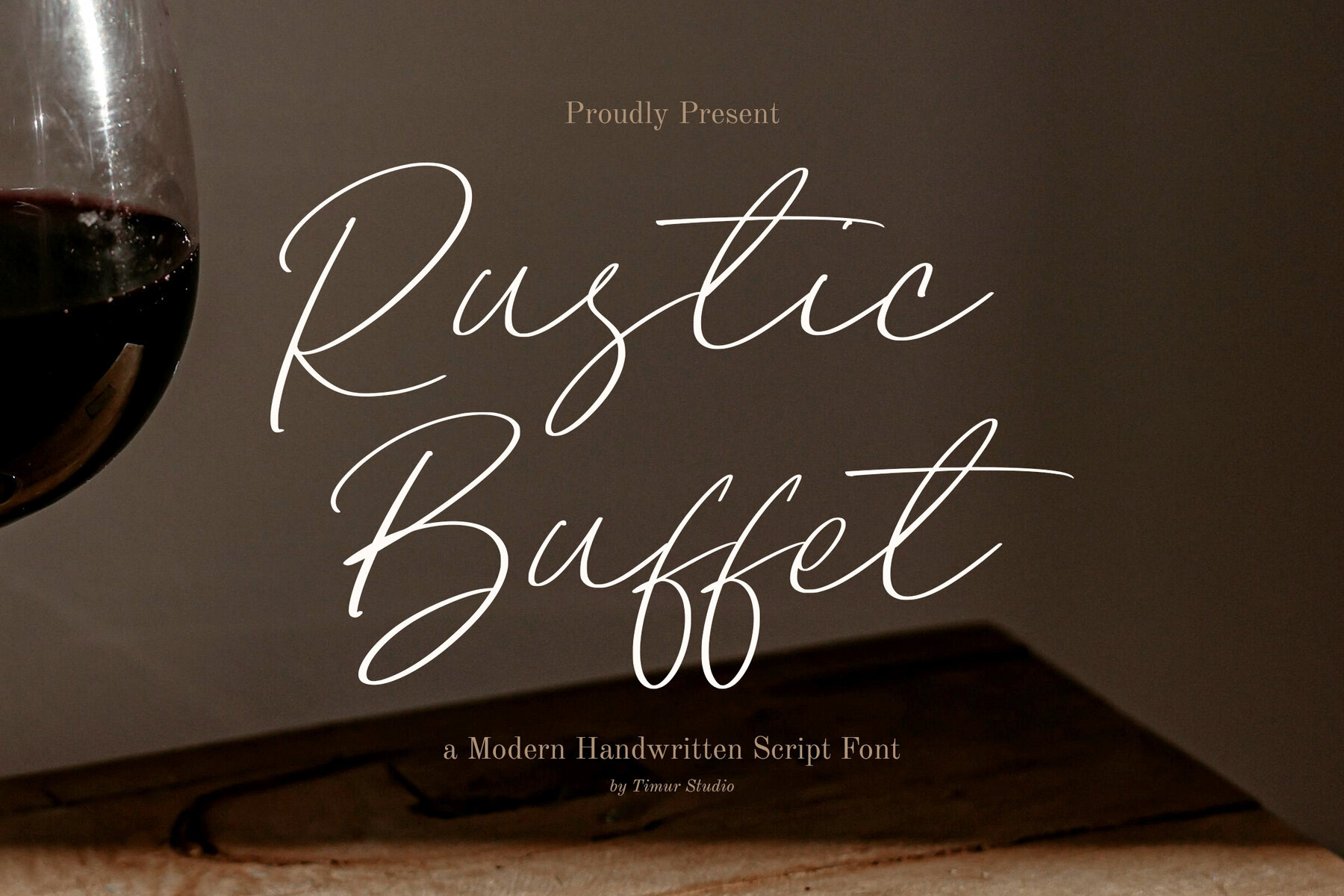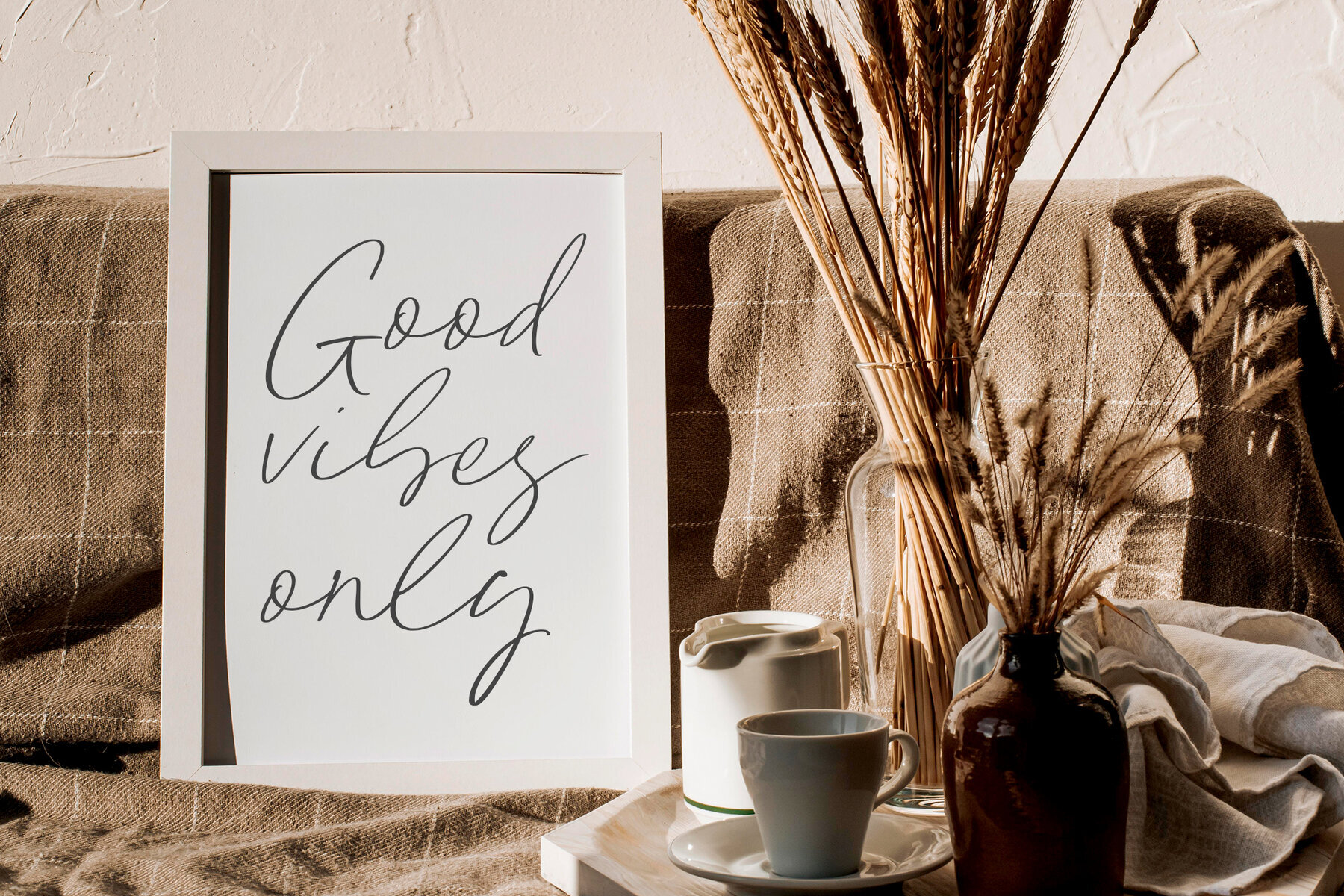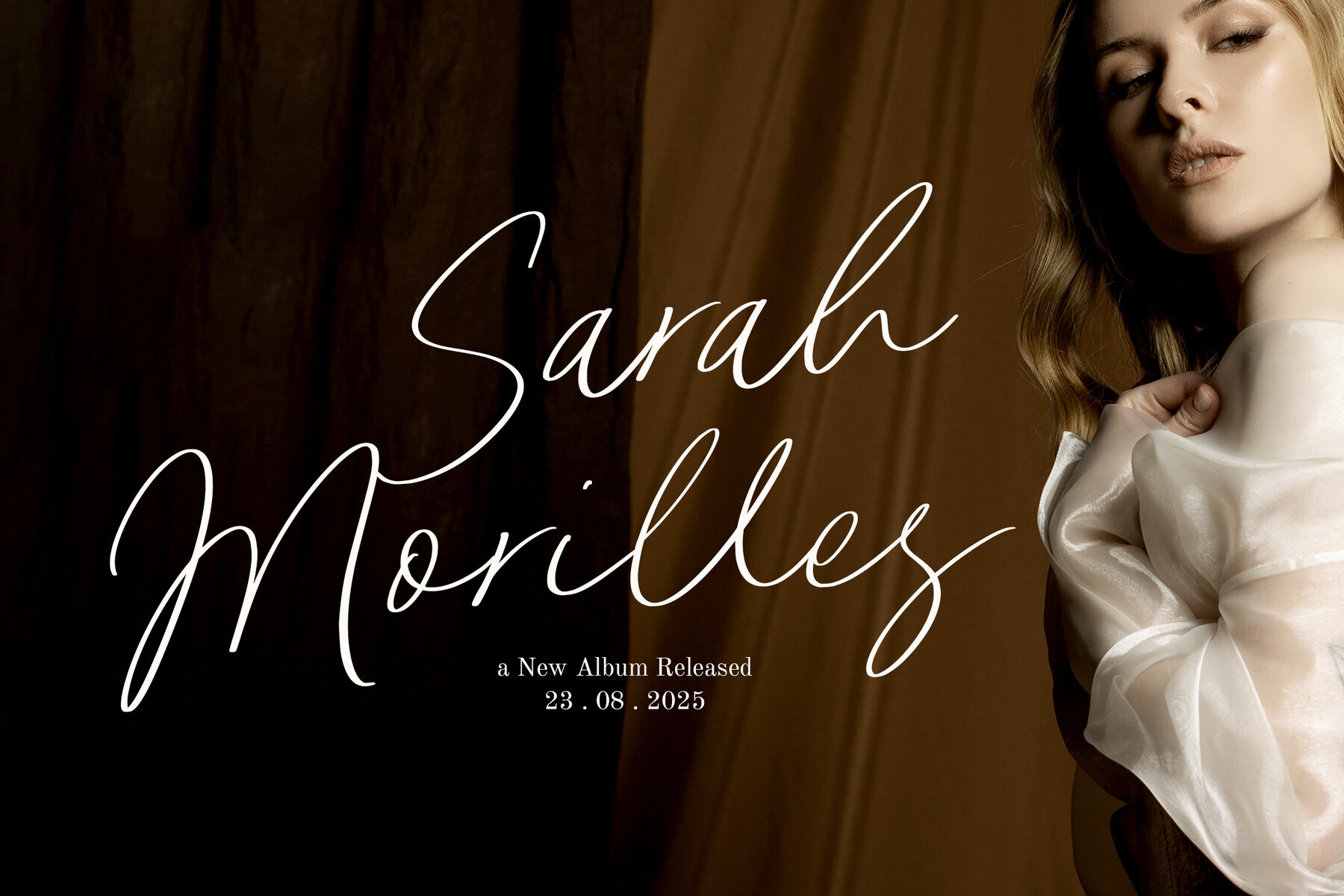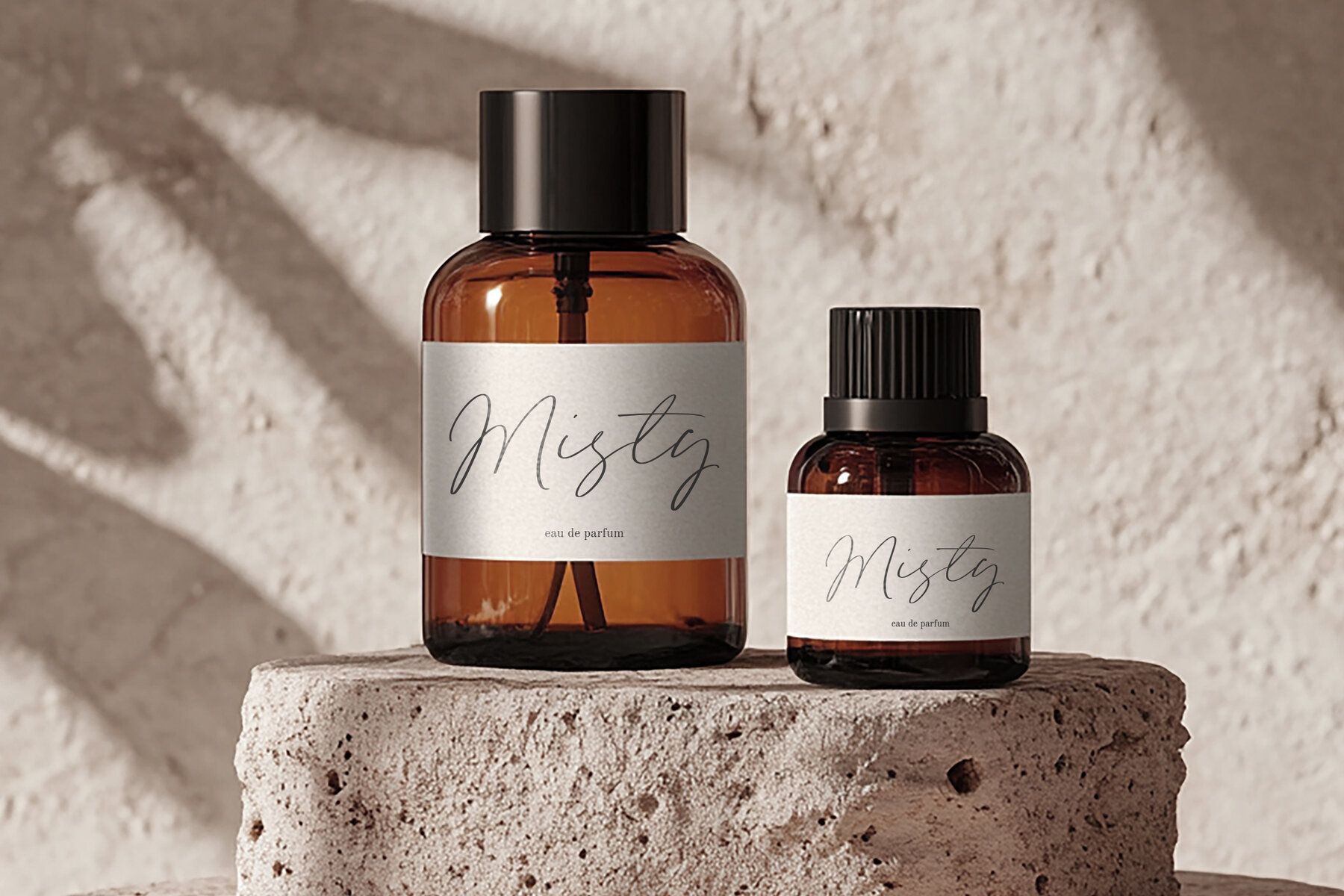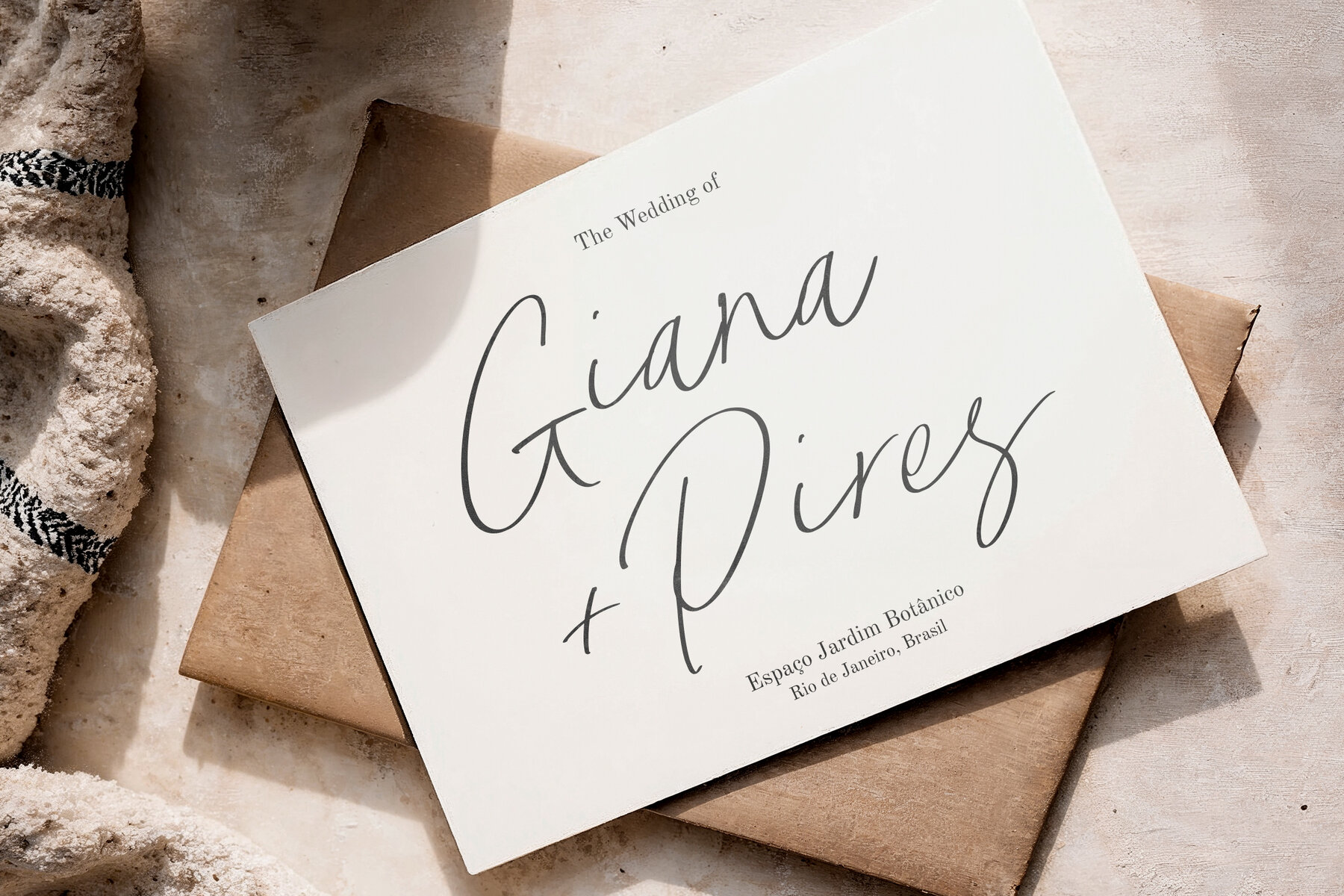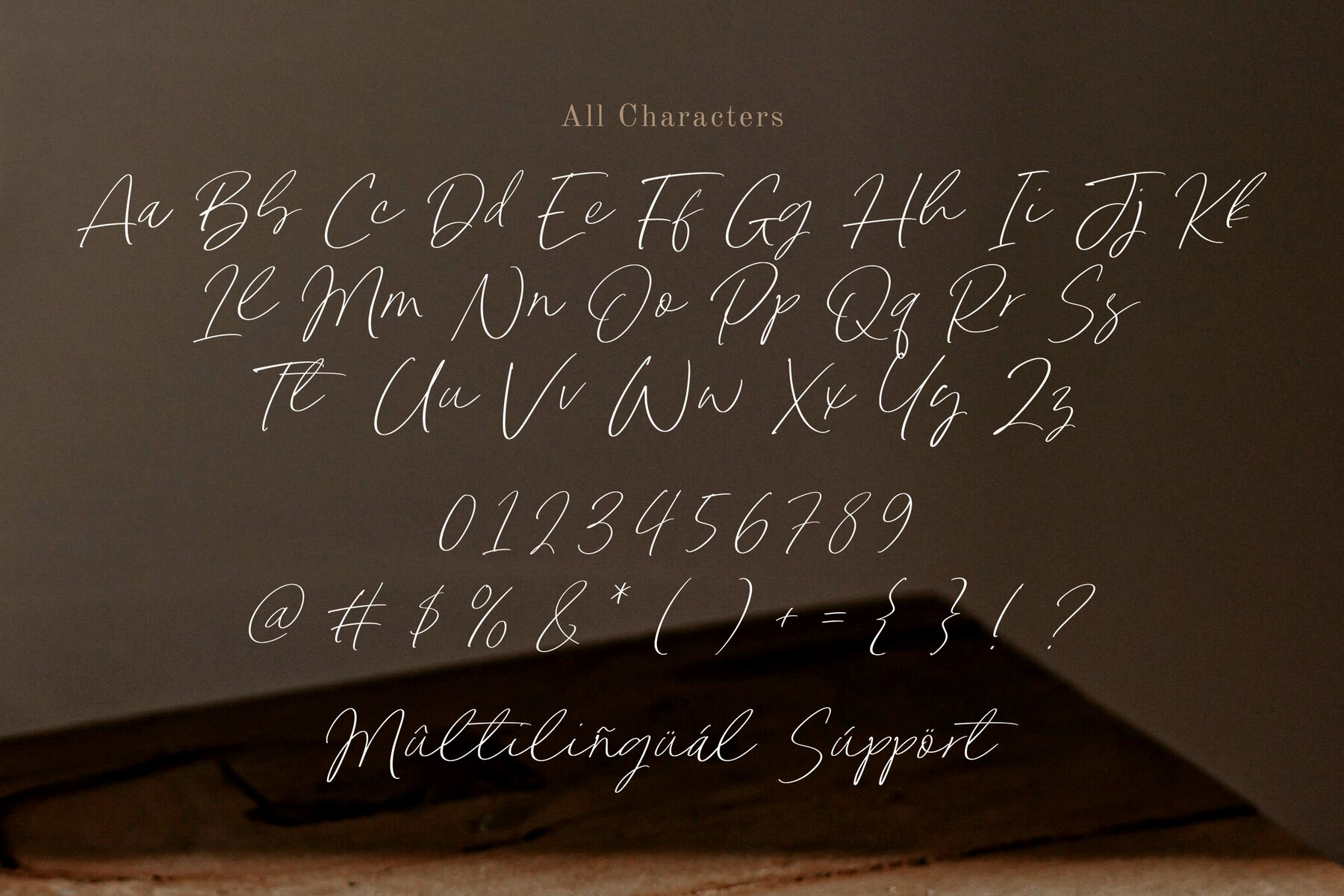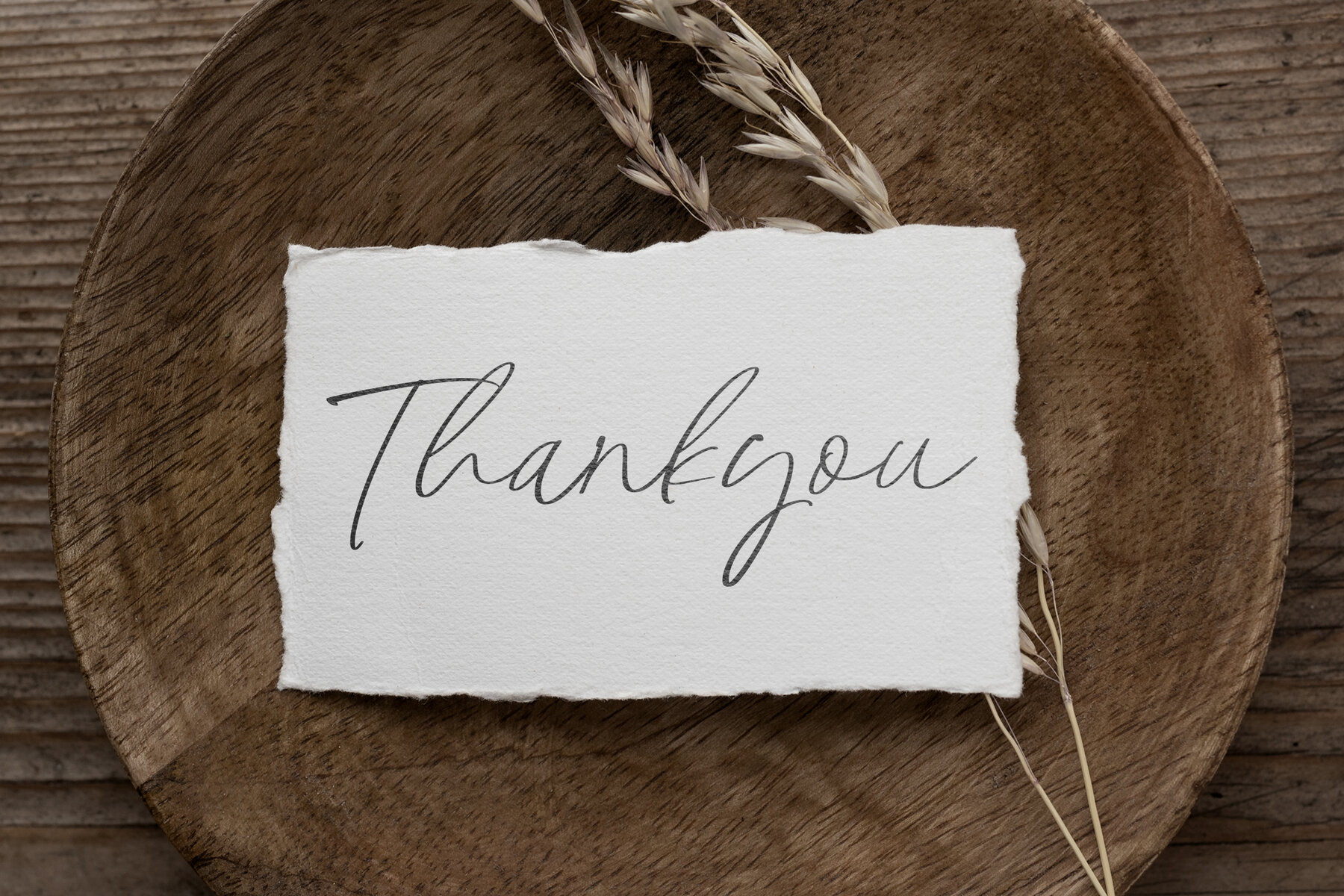
Rustic Buffet Font
Rustic Buffet
The Rustic Buffet font, crafted by Timurtype Studio, effortlessly combines casual elegance with a rustic charm. This modern handwritten script font showcases fluid strokes and natural curves, bringing a handcrafted feel that enhances any project. Perfectly suited for branding, wedding invitations, social media graphics, and more, its versatility balances sophistication and warmth, making it a top choice for both digital and print designs.Rustic Buffet: Modern Handwritten Script Font